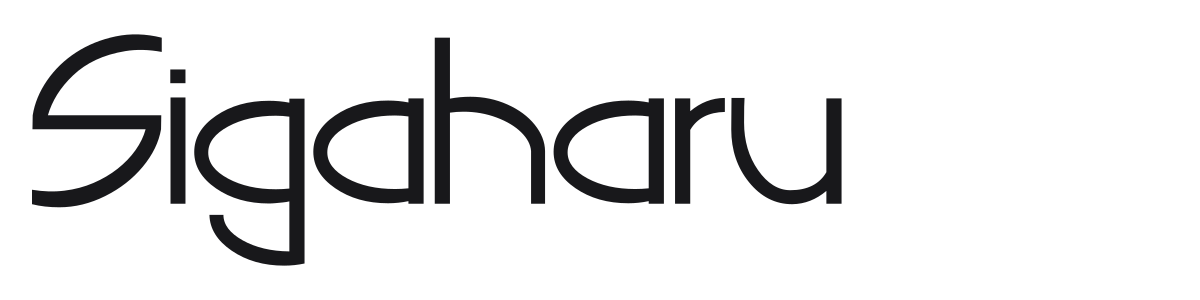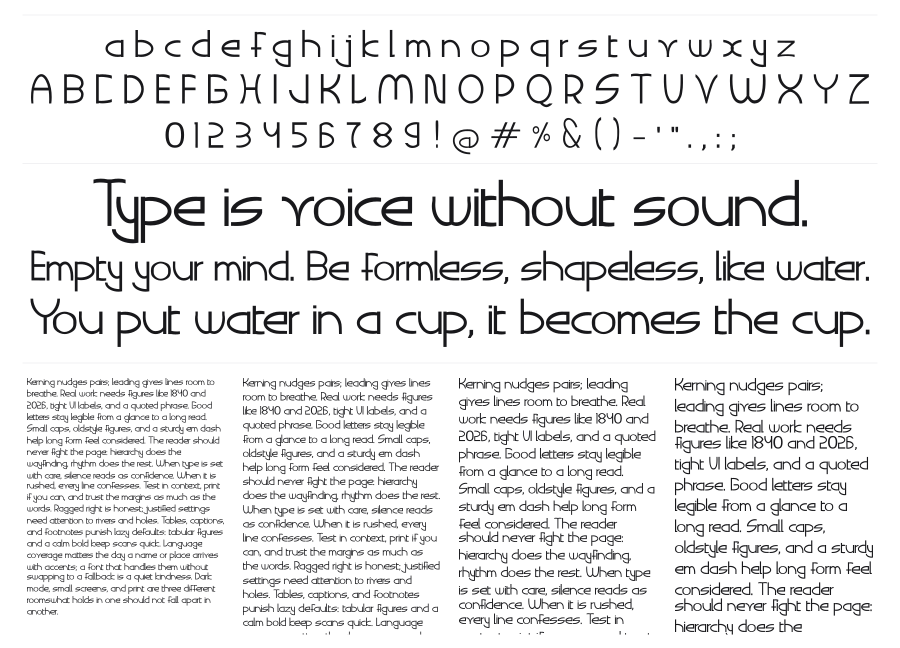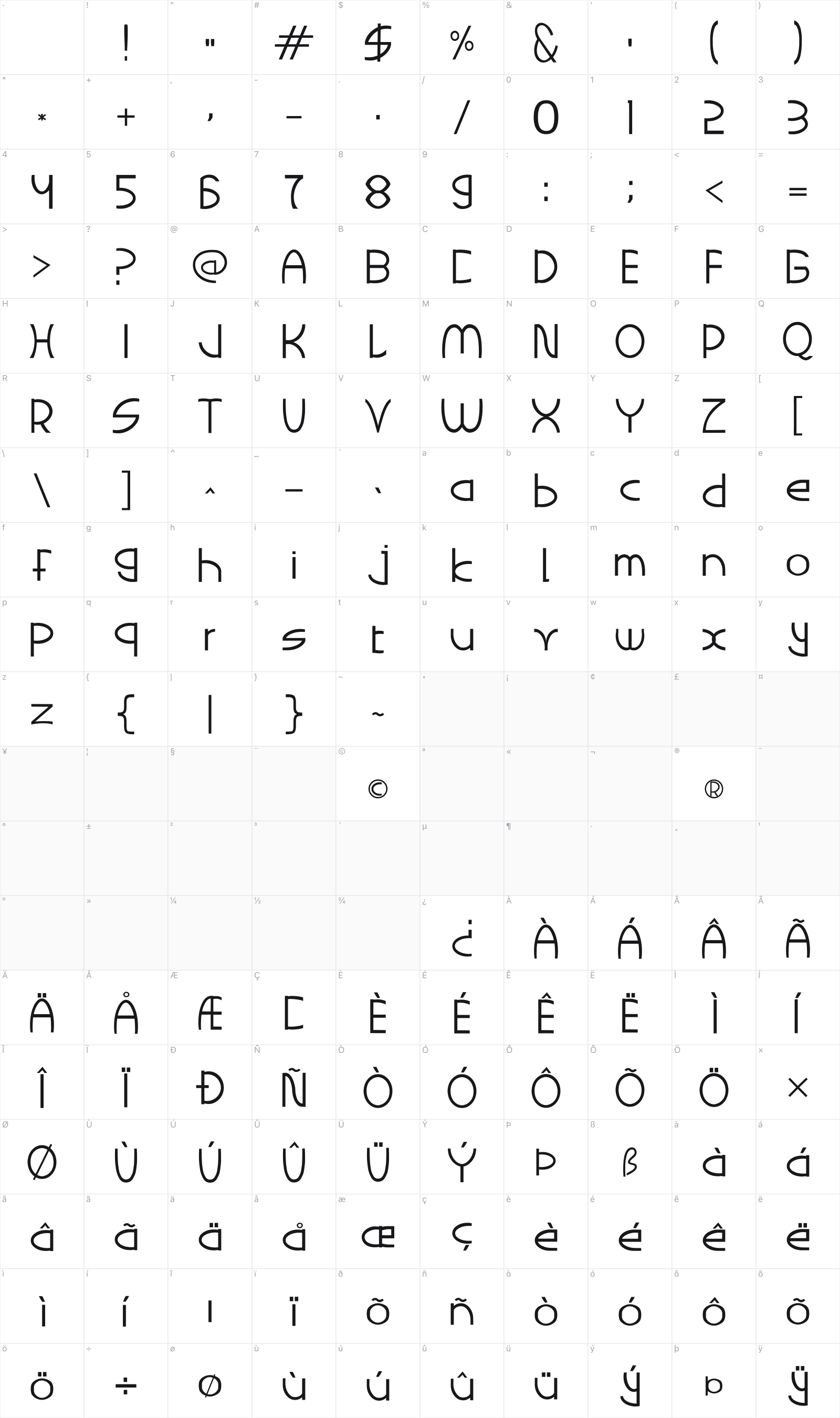
Sigaharu
by Muhamad Ali Hasan
Sigaharu is a geometric sans with an unusual duality: rounded, circular letters sit alongside characters built with sharp, flat-cut terminals and angular construction. That contrast gives it a distinctive handcrafted quality within an otherwise clean framework. Strong for logotypes, editorial headlines, and any identity work that wants geometry with personality.